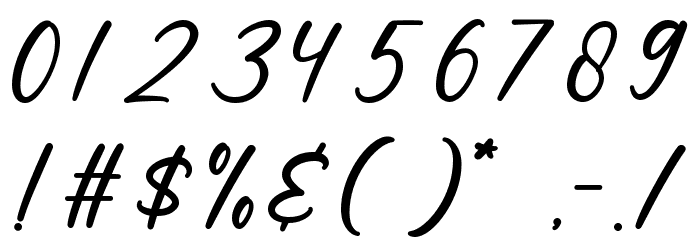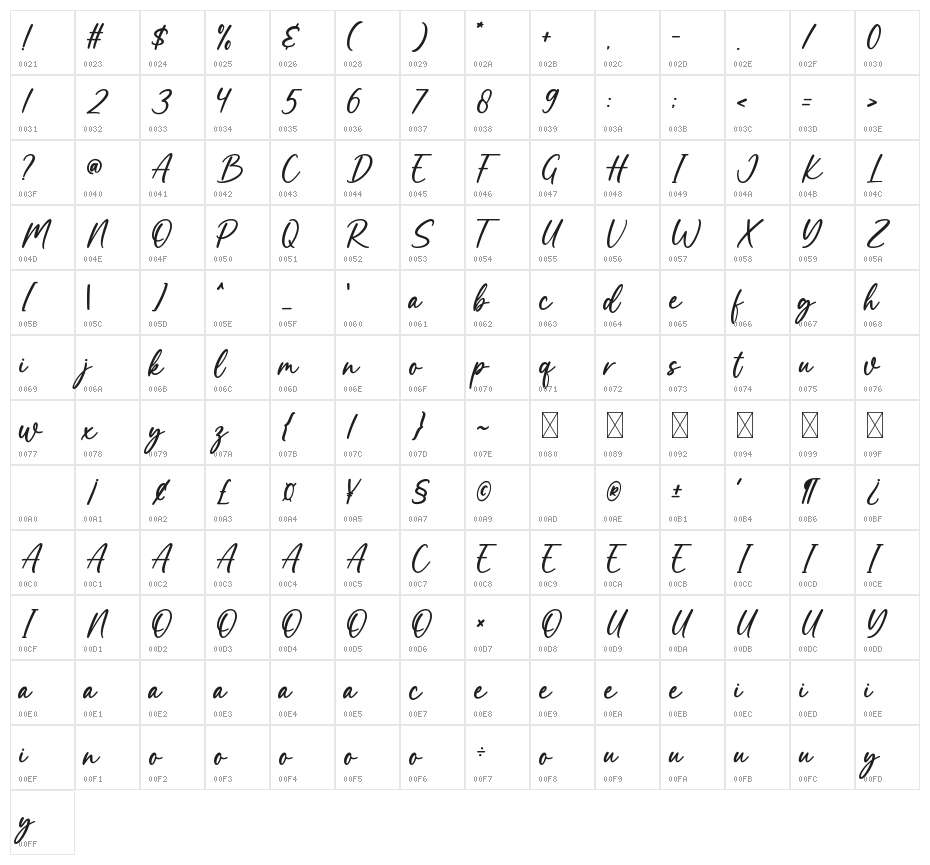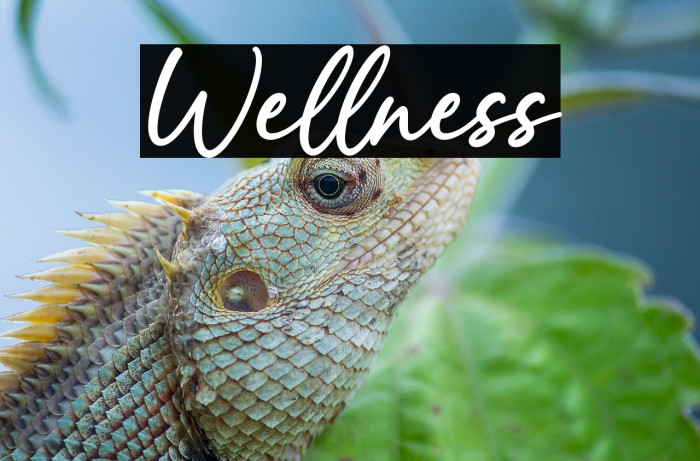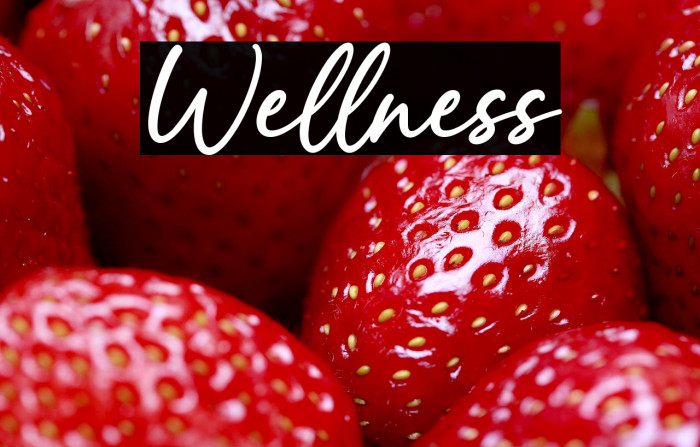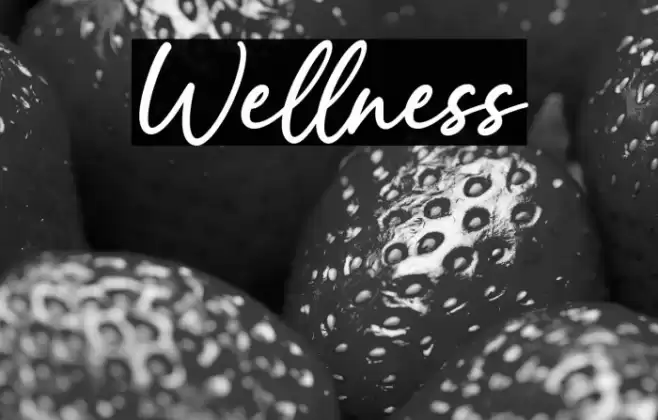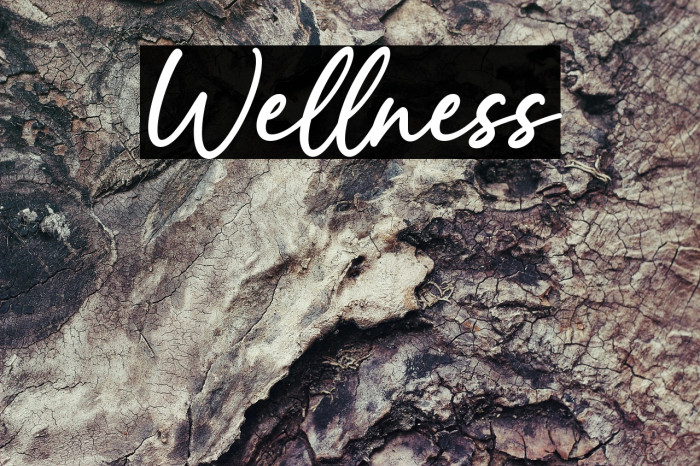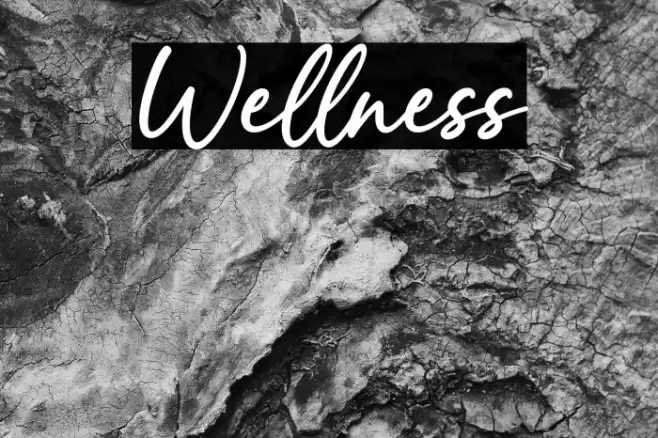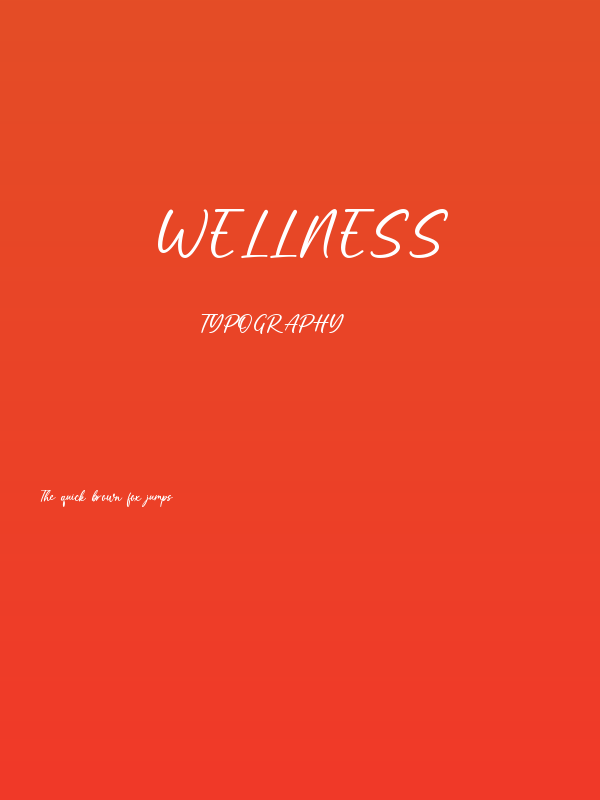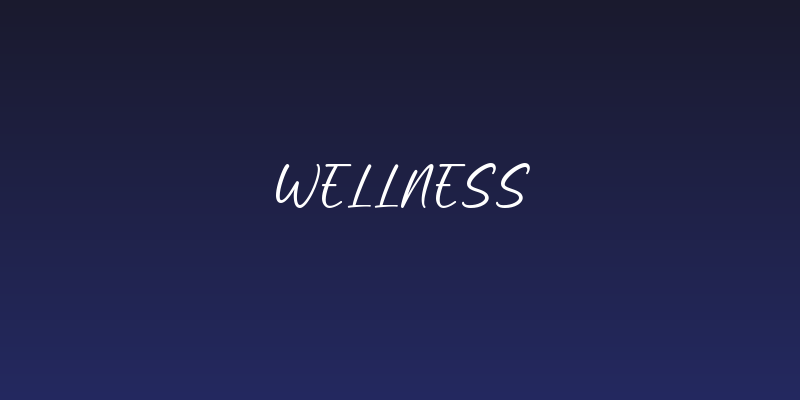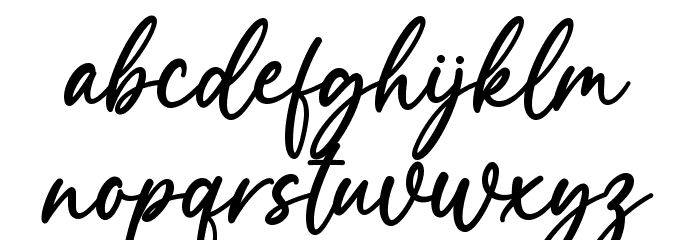
Wellness Font
Wellness Description
This font features a flowing, cursive style that exudes elegance and sophistication. The letters are interconnected, creating a seamless and fluid appearance. The uppercase characters maintain a consistent height, while the lowercase letters exhibit a slight slant, enhancing the script-like quality. The numerals are distinct and maintain the same graceful curves as the alphabetic characters. Special characters are included, matching the overall aesthetic with smooth, rounded edges. This font is ideal for creating a personal and inviting feel, suitable for a variety of design projects.